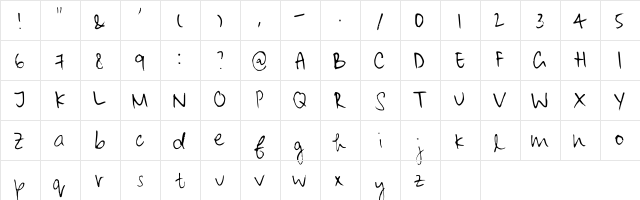
Maliniothers Light Regular
Design Context for Maliniothers Light Typeface
Maliniothers Light is a composed and adaptable typeface that performs quietly and consistently across a wide range of design contexts. The delicate stroke weight brings airiness and refinement to layouts.